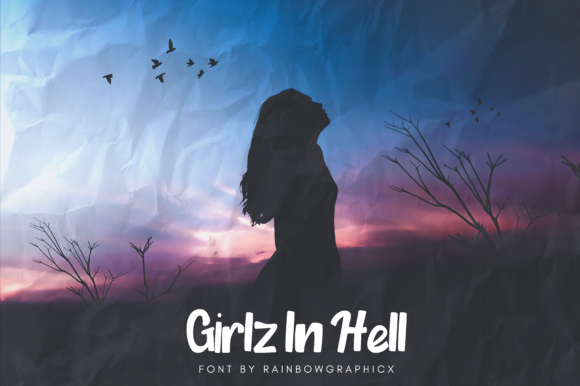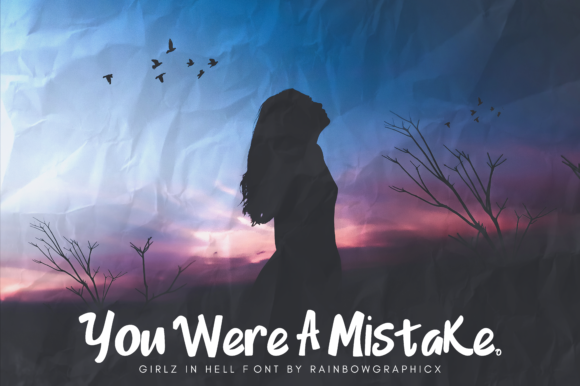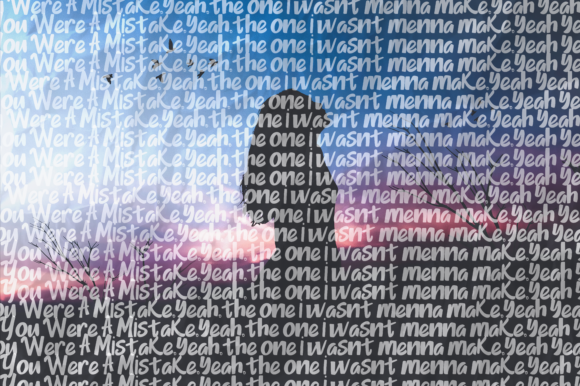
Girlz in Hell Font
About Girlz in Hell Font
Girlz In Hell is a sweet and simple script font with a unique style. Use it to turn any design idea into a piece of art!